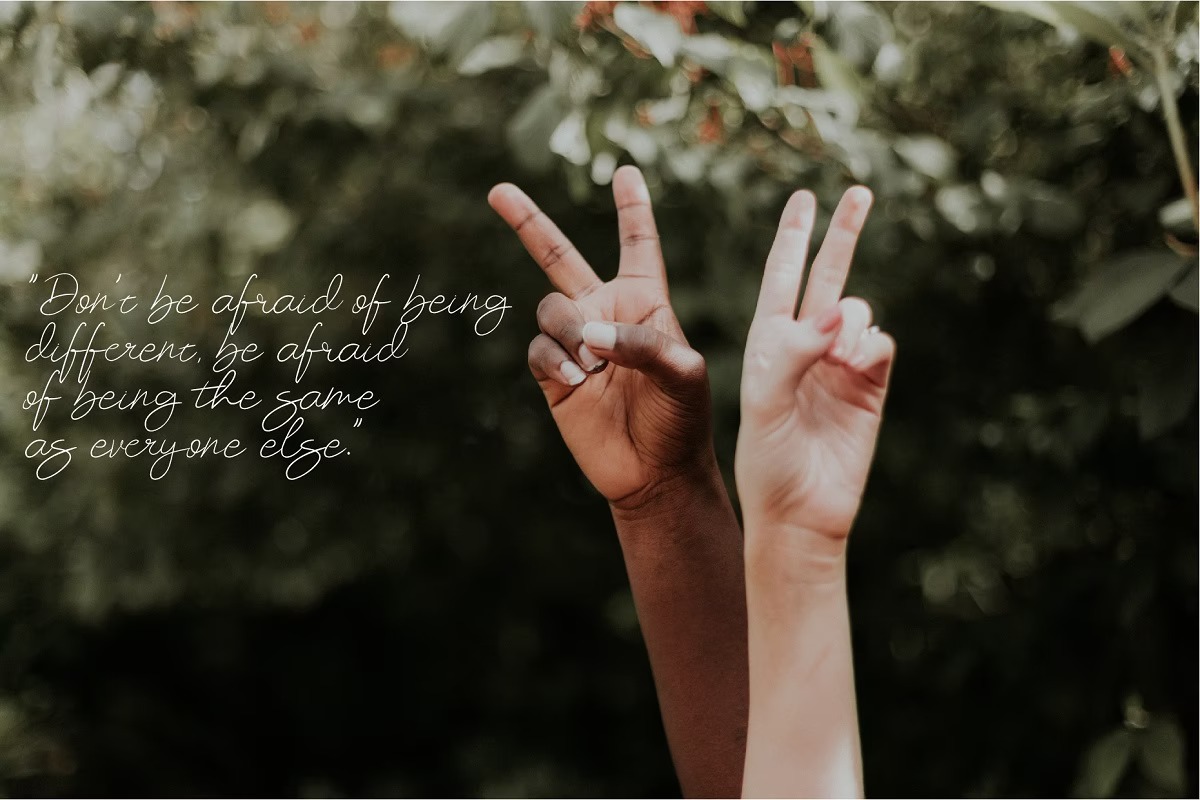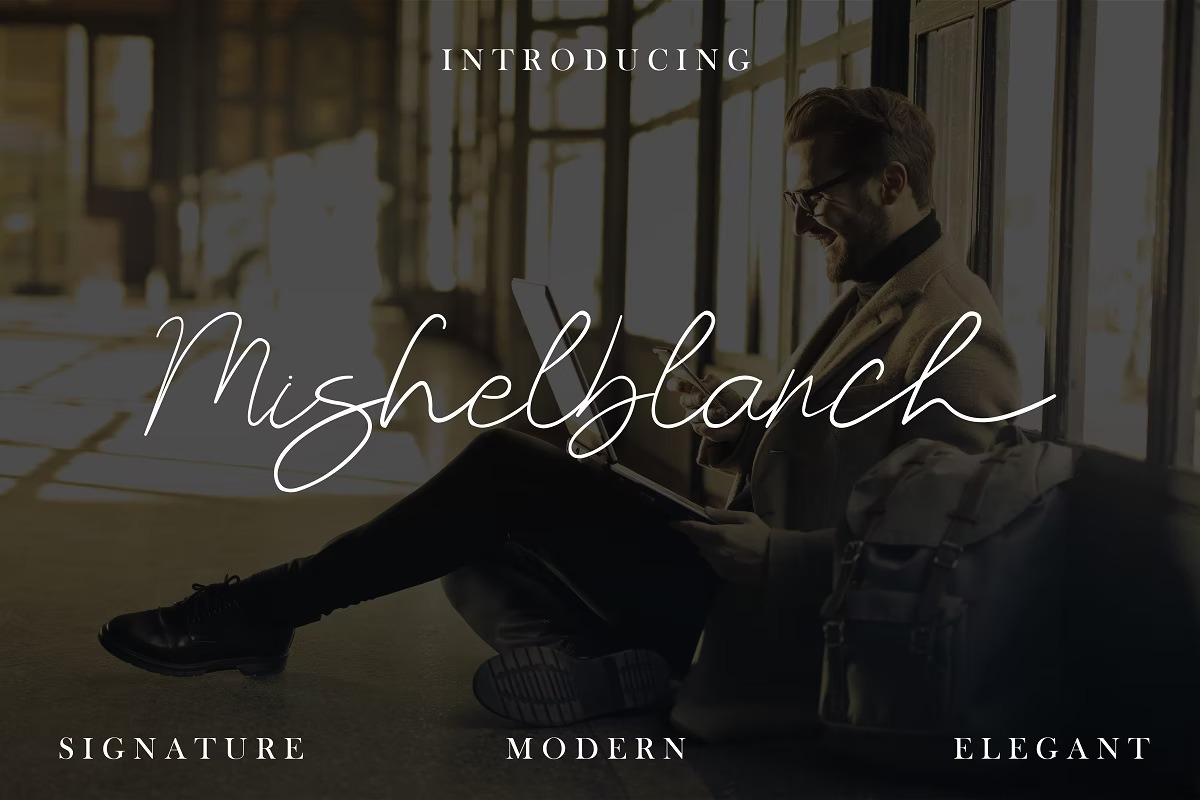
Mishelblanch Handwritten Font
It’s a relaxed and flowing handwritten typeface manufactured by fontminestudio. Incredibly versatile, this font fits a wide pool of designs, elevating them to the highest levels. Perfect for all your needs, such as a logo, printed quotes, badge, insignia, packaging, headline, poster, t-shirt/apparel, greeting card, and wedding invitation, & etc.